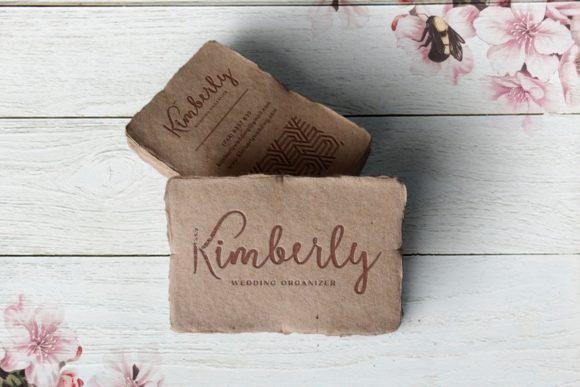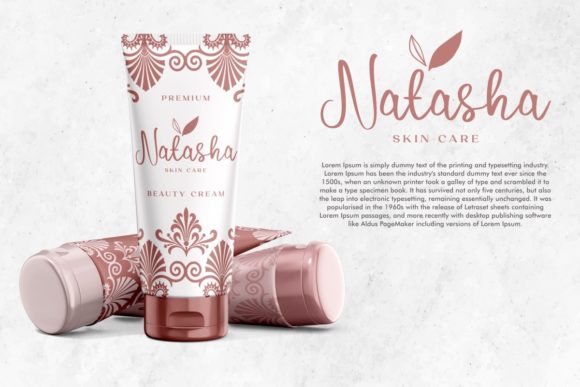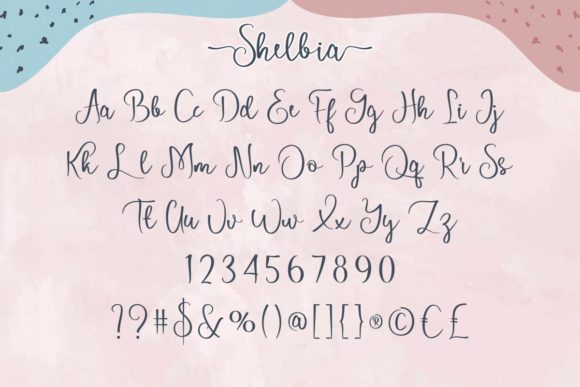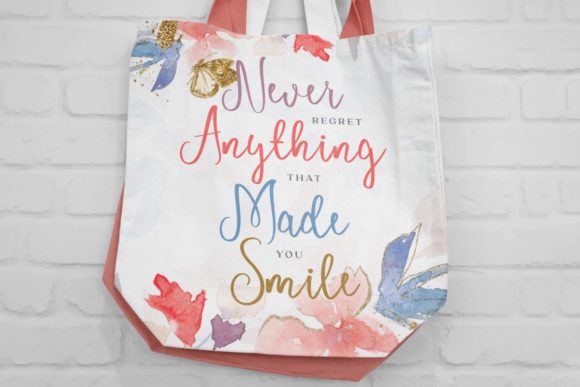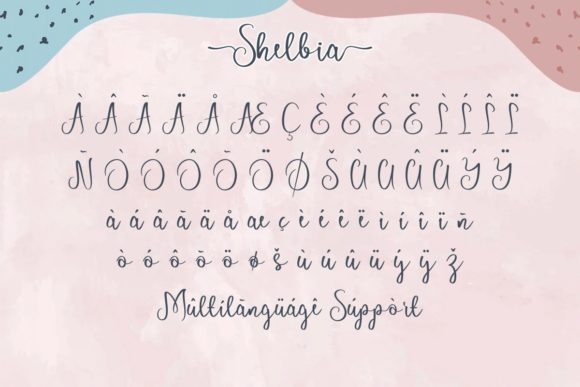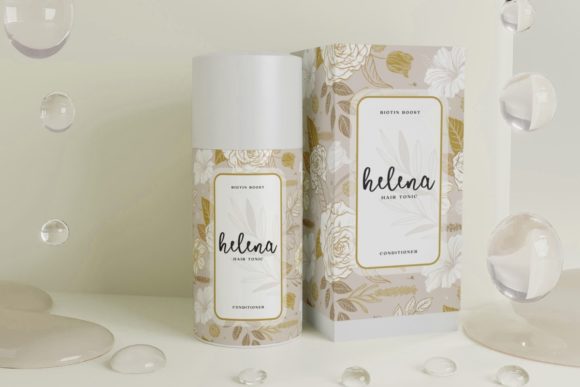
Introduction to Shelbia Font
Shelbia is a stylish calligraphy font that is suitable for brand fashion, headline, invitation, logos, packaging, quote, signature, wedding and various other needs.
This font is classy, simple, but still authentic Shelbia is PUA encoded which means you can access all of the glyphs and swashes with ease.